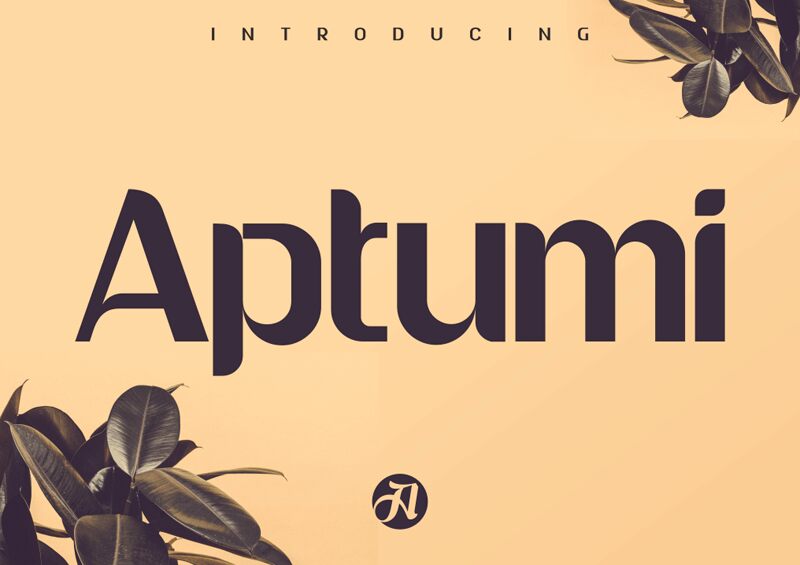
Aptumi
Aptumi, crafted by the Eotype Type Foundry, is a striking sans-serif font that radiates a captivating balance of modern elegance and timeless sophistication. Its clean, geometric letterforms exude a refined aesthetic, while the subtle curves and generous x-height lend a sense of warmth and approachability. The font's distinctive character shines through in its seamless flow and harmonious proportions, making it a compelling choice for a wide range of design applications.
Aptumi's versatility is its true strength. Its legible and well-balanced design makes it an excellent selection for body text, headings, and branding initiatives, where its sophisticated persona can elevate the visual impact. Equally at home in digital interfaces, print collateral, or packaging designs, Aptumi's adaptability allows designers to effortlessly integrate it into diverse creative projects, ensuring a cohesive and visually striking outcome.